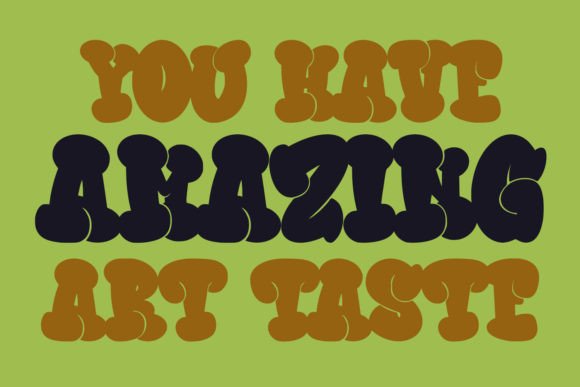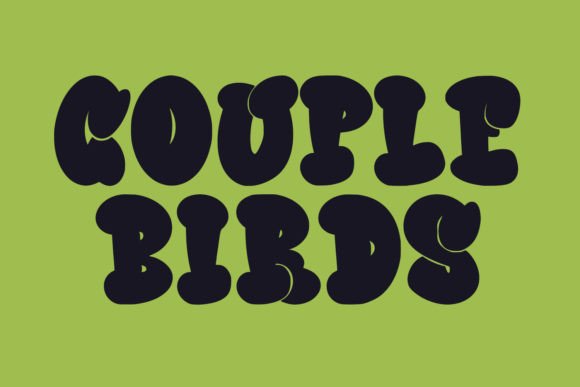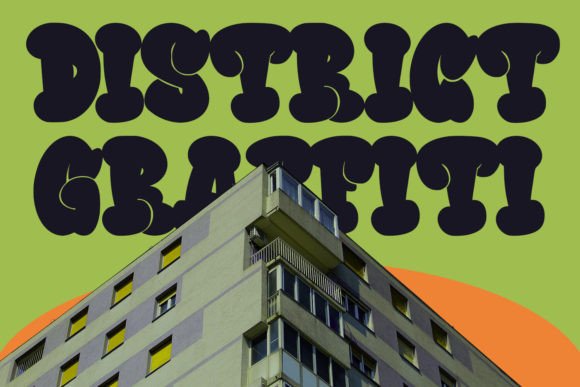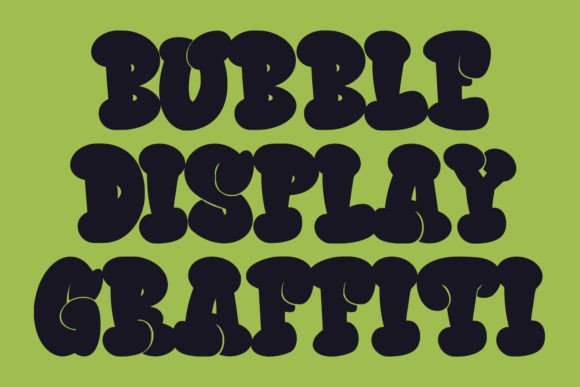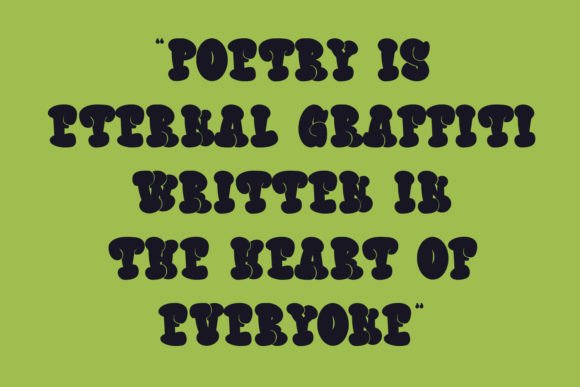
The Perfect Font for a Fun Celebration
Imagine you’re planning a surprise birthday party for a friend, and you want the invitation to be as memorable as the celebration itself. You spend hours crafting the perfect message, but it’s missing that one element that will make it truly special. That’s where the magic of the right font comes in – and for occasions like these, Bigzo Hams Font is the perfect choice.
This wavy, whimsical, and uniquely shaped display font is designed to add a touch of youth and joy to any design. Whether you’re creating a party invitation, a swimming-themed poster, or just want to give your project a playful twist, Bigzo Hams Font is the perfect addition. Its trendy and stylish vibe makes it a valuable asset for designers looking to elevate their creations and make a lasting impression.
Bigzo Hams Font Key Features
- Font Family: Bigzo Hams is a unique, hand-drawn font designed for creative projects.
- Character Set: Includes a wide range of characters, including uppercase and lowercase letters, numbers, and punctuation marks.
- Unique Characteristics: Features a playful, handwritten style with subtle imperfections, giving it a personal and creative touch.
Bigzo Hams Font Review
I recently had the chance to work with Bigzo Hams Font, and I’m excited to share my honest review with you. Overall, I found this font to be quite charming and fun to work with.
- ✨ The unique, playful design of Bigzo Hams Font makes it perfect for creating eye-catching headlines and titles.
- ✨ Bigzo Hams Font is also highly legible, even at small font sizes, making it suitable for a wide range of applications.
- ⚠️ The font may not be suitable for formal or professional projects, as its playful design may come across as unprofessional.
- ⚠️ The font’s unique design may also make it difficult to pair with other fonts, so be prepared to invest time in finding the perfect pairing.
Bigzo Hams Font is a fun and creative addition to any designer’s toolkit. While it may have some limitations, its unique design and high customizability make it a great choice for projects that require a playful touch. I would recommend Bigzo Hams Font to designers looking for a font that can add some personality to their designs.
Experiment with different font sizes and colors to create visually appealing contrast. Use Bigzo Hams Font for headings and titles to draw attention to important information. Combine Bigzo Hams Font with other fonts to create a unique and eye-catching typography style.
Bigzo Hams Font is ideal for creating bold and eye-catching typography in various design projects, including:
- Headings and titles in marketing materials
- Infographics and data visualizations
- Web design and digital marketing materials